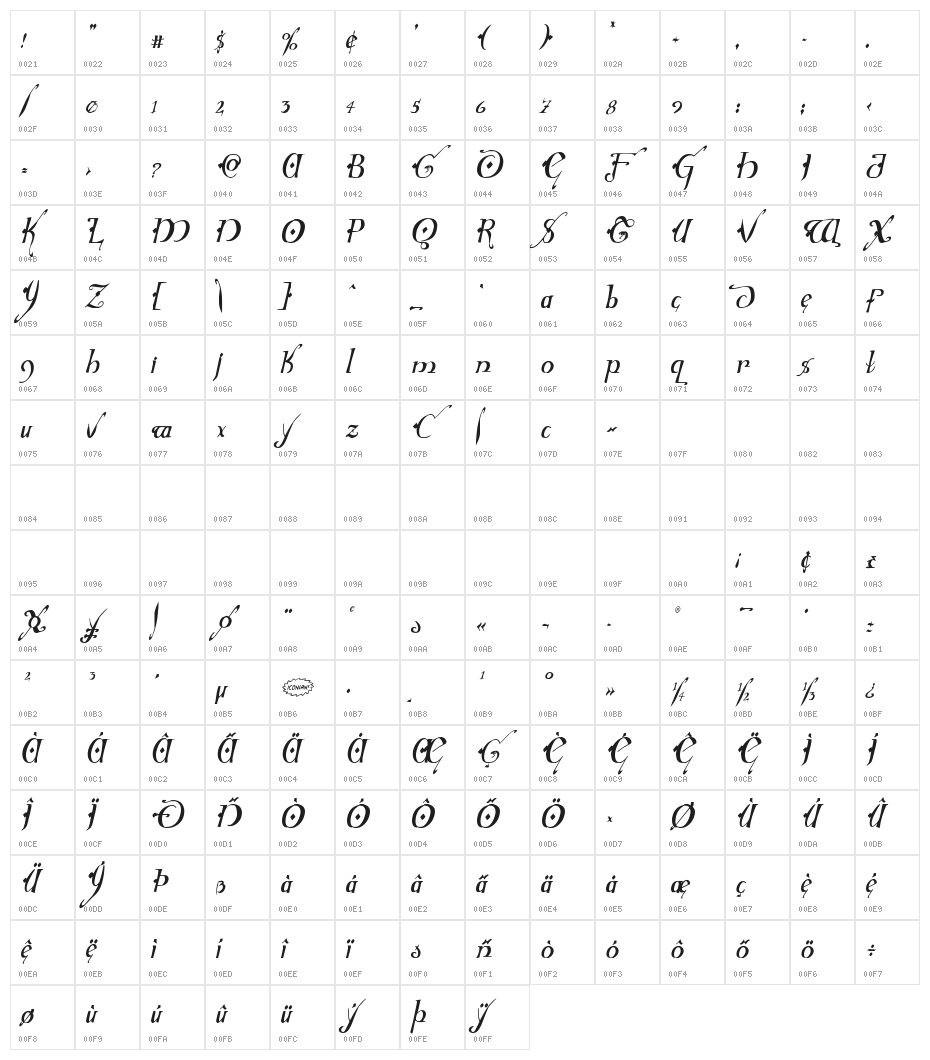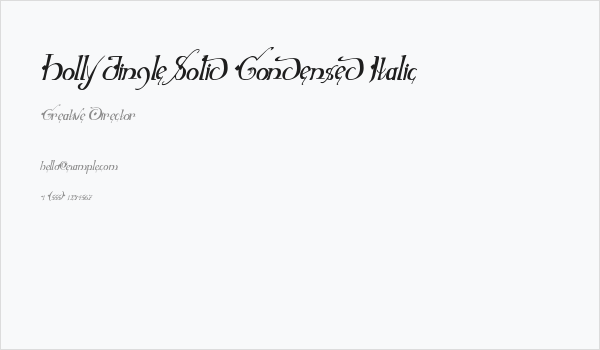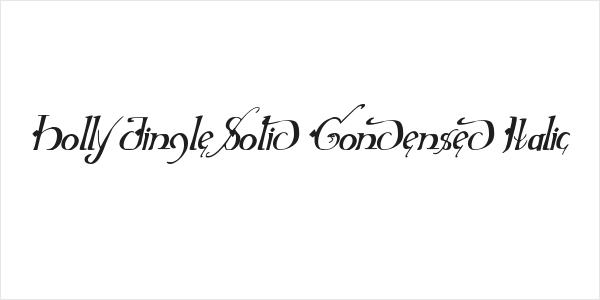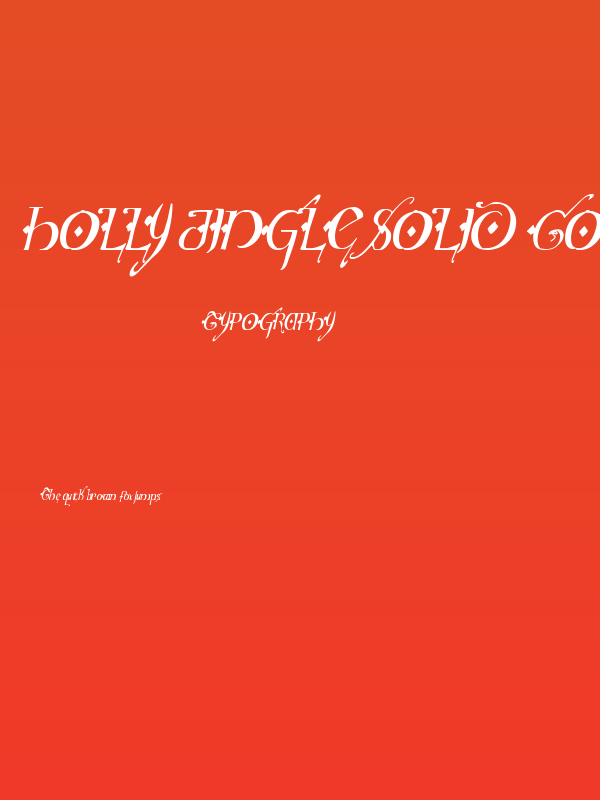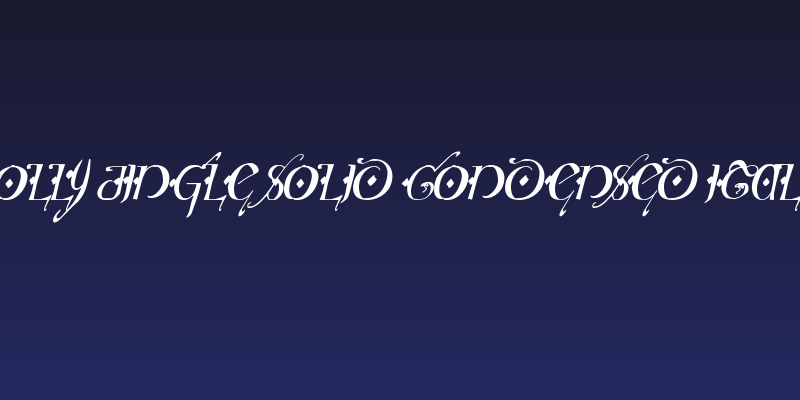
Holly Jingle Solid Condensed Italic Font
Holly Jingle Solid Condensed Italic Description
This font features an elegant and festive design with a calligraphic flair, characterized by its condensed and italicized form. The letters are adorned with intricate swirls and decorative elements, giving it a whimsical and ornate appearance. The uppercase letters are bold and striking, while the lowercase letters maintain a consistent style with a slightly more delicate touch. Numbers and special characters are equally stylized, ensuring a cohesive look across all elements. The font's unique style makes it suitable for holiday-themed projects or any design requiring a touch of elegance and festivity.
| Proposed Projects | Ideal for holiday cards, festive invitations, decorative posters, and branding that requires a whimsical touch. |